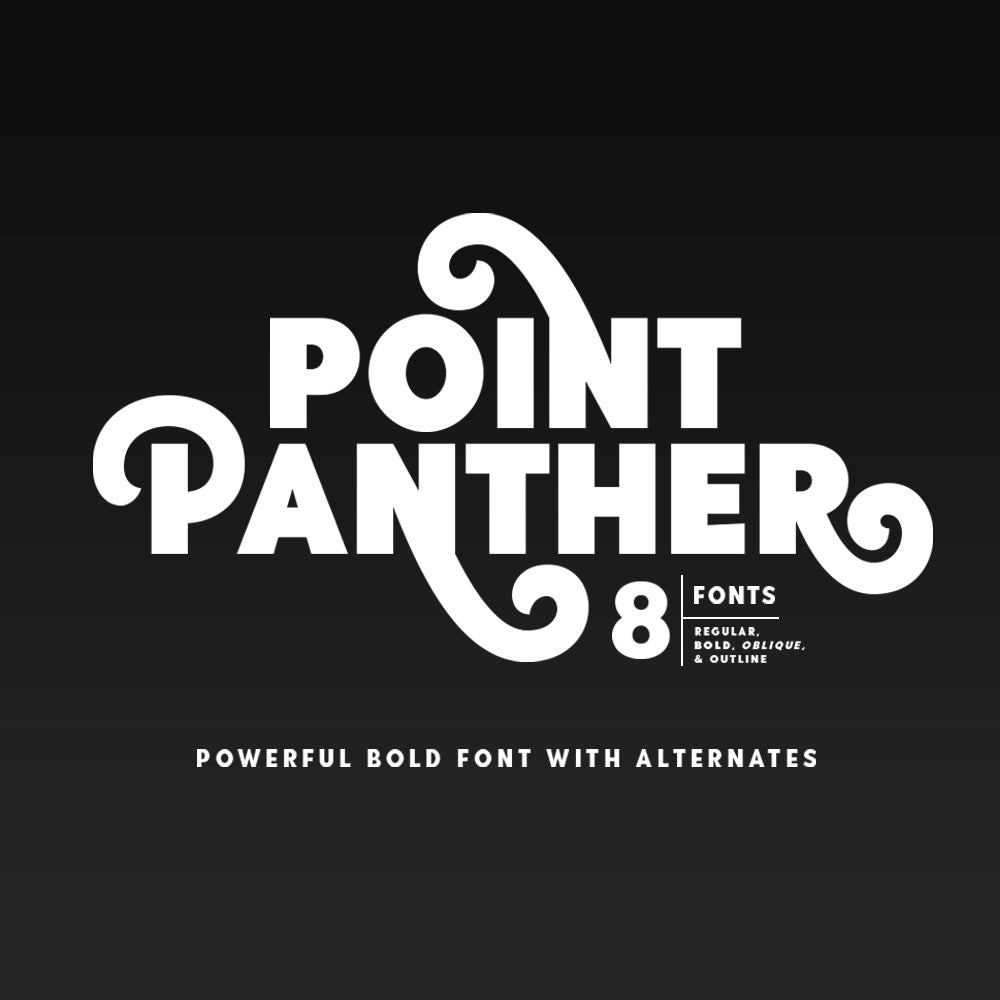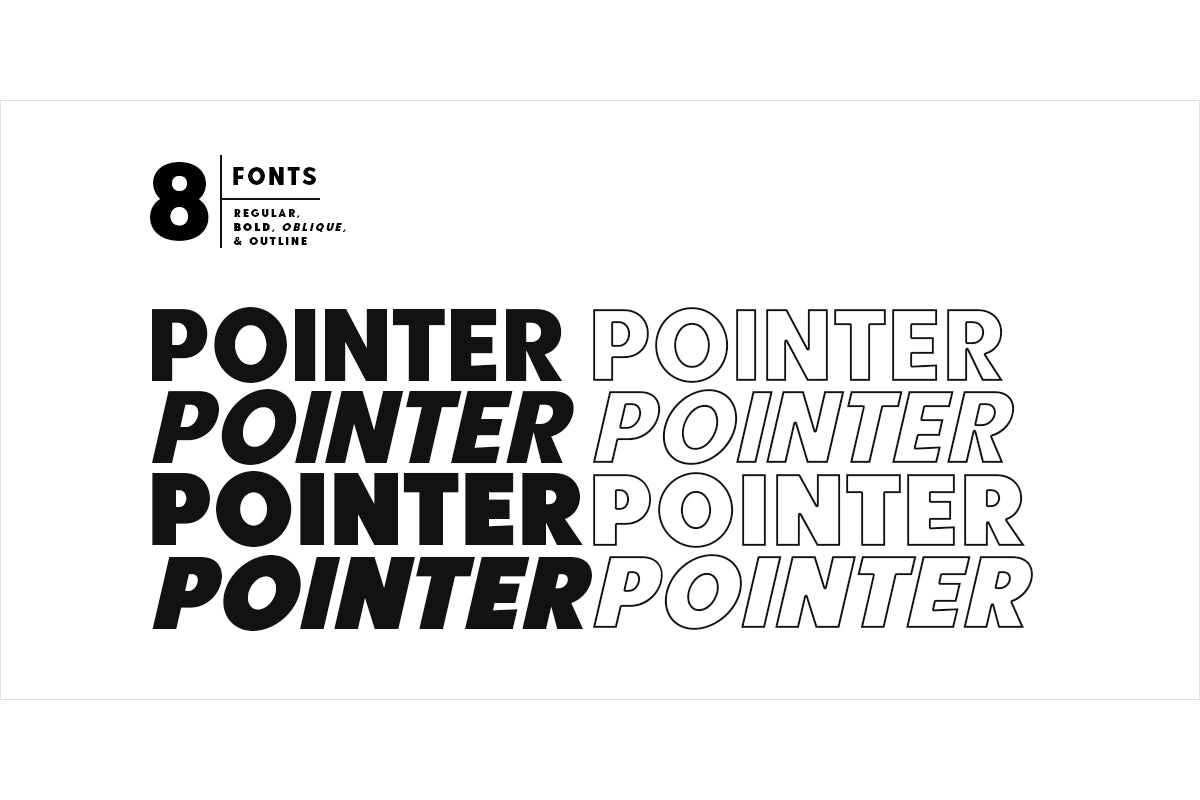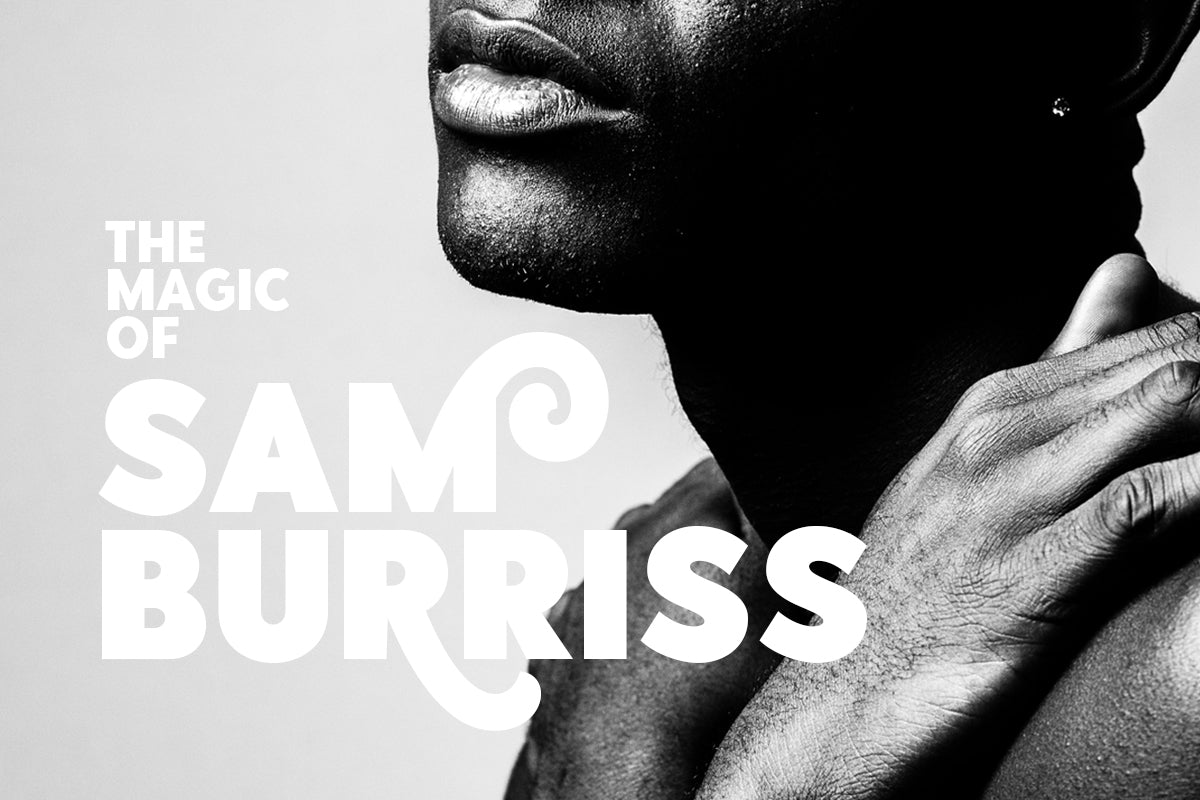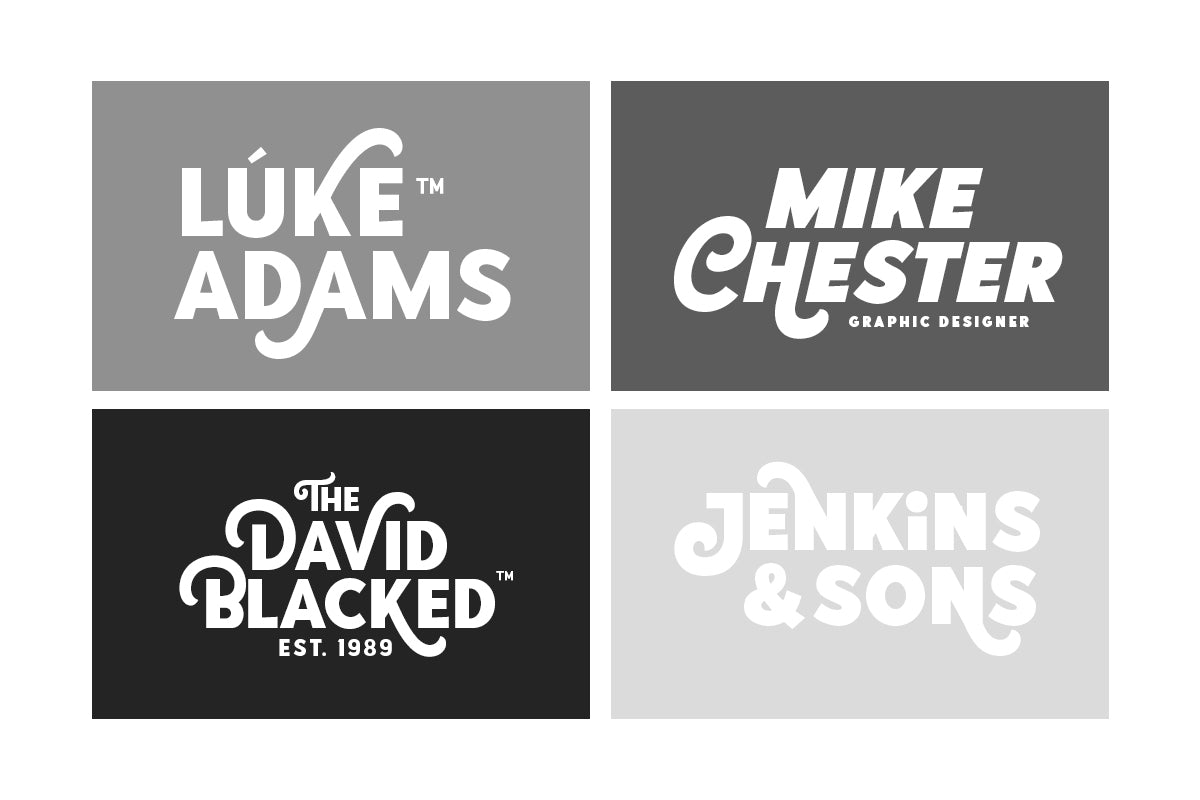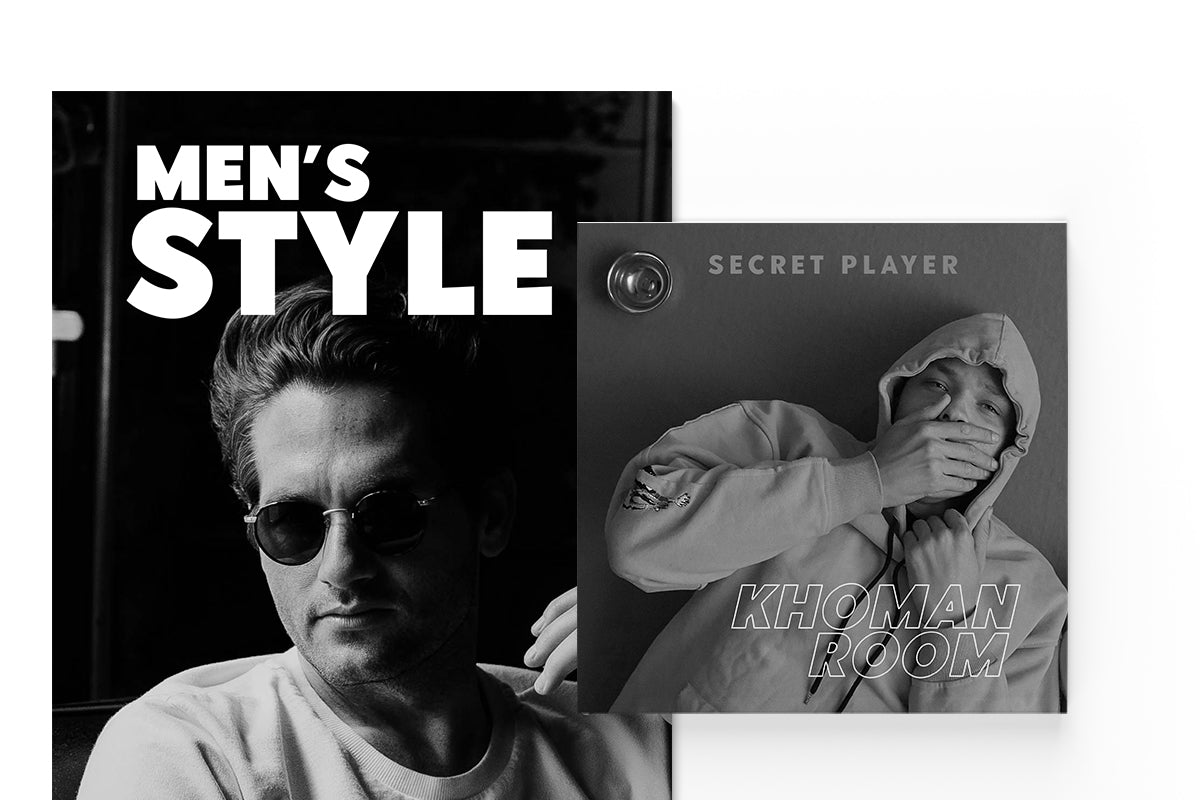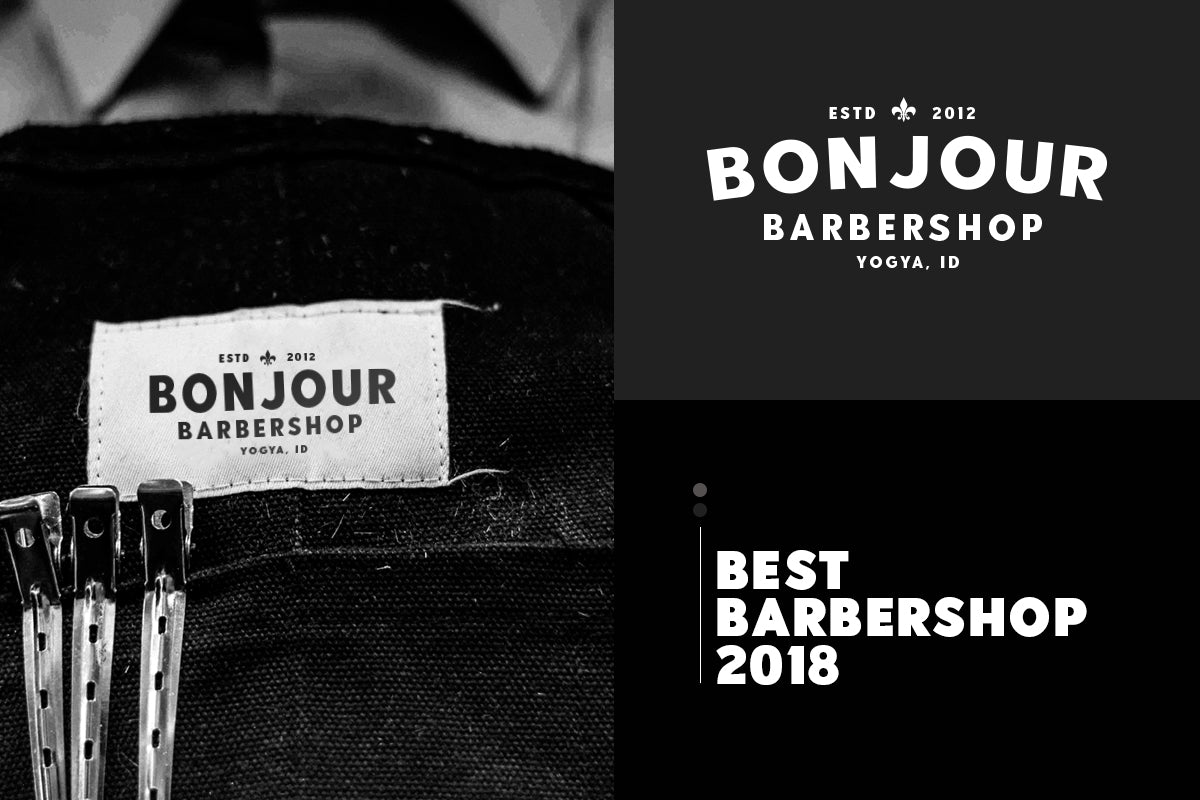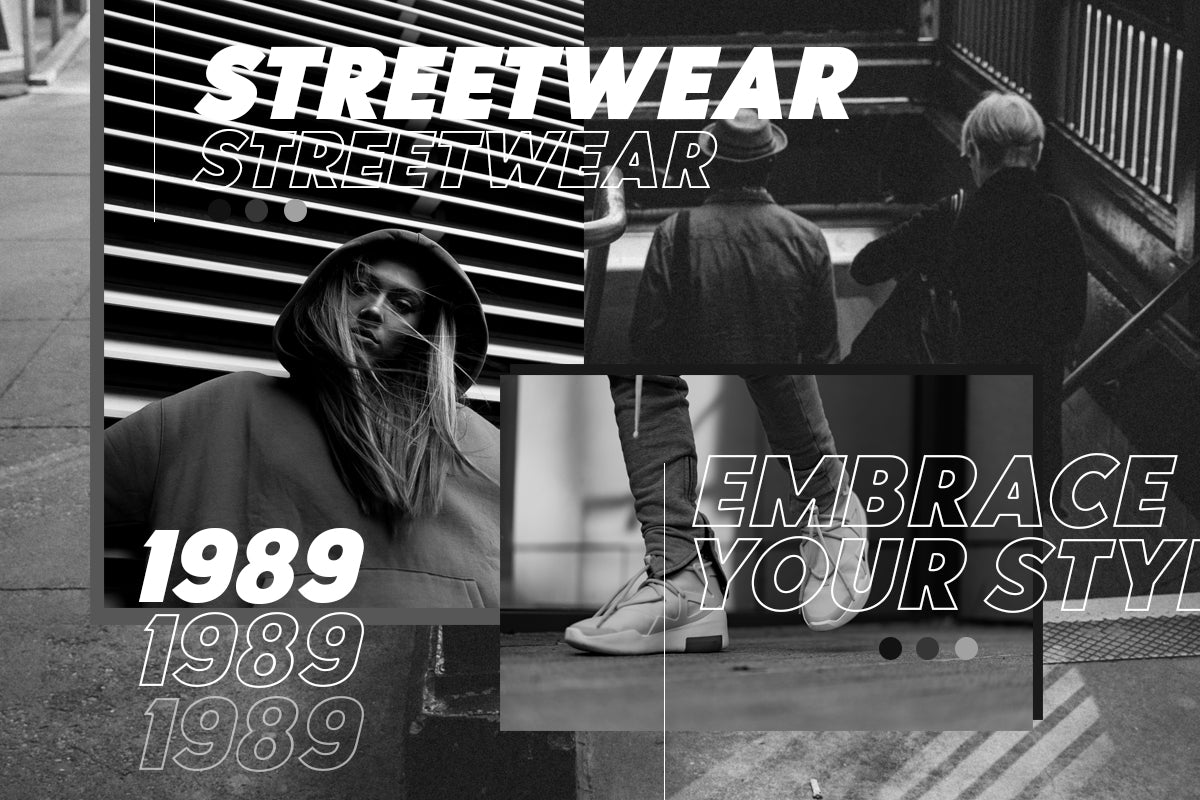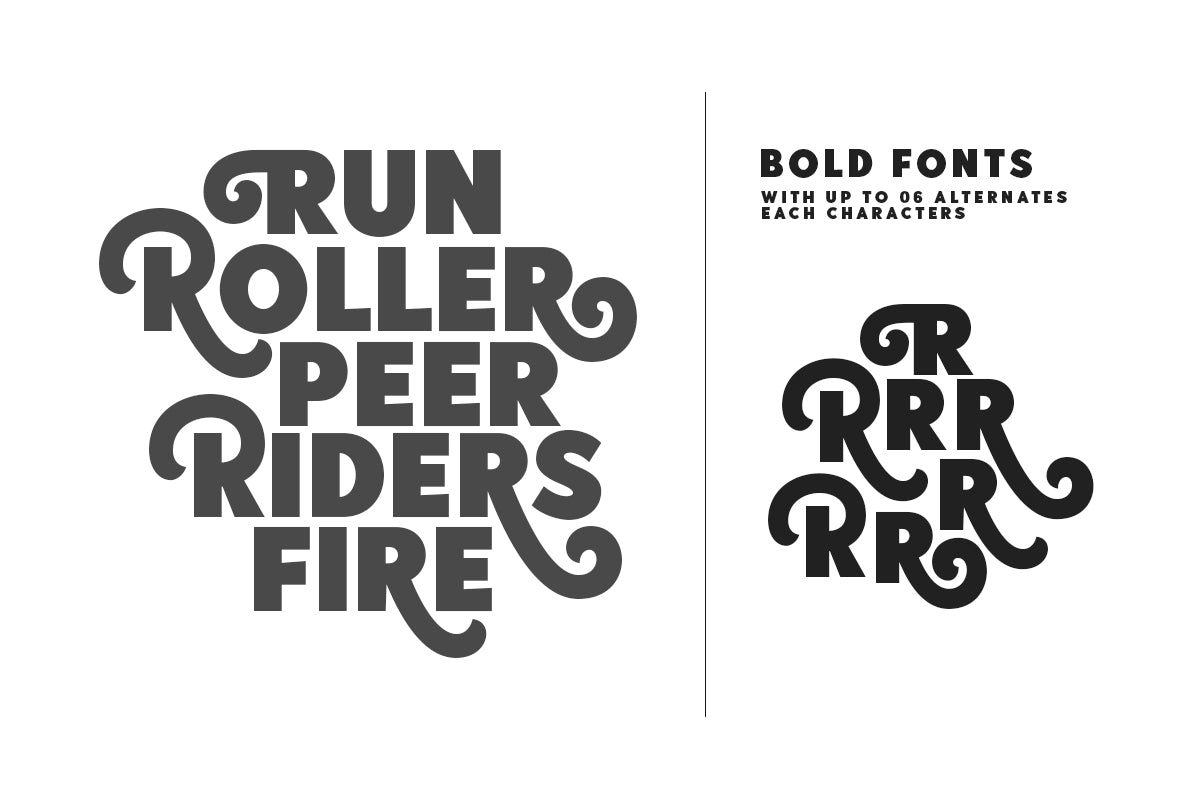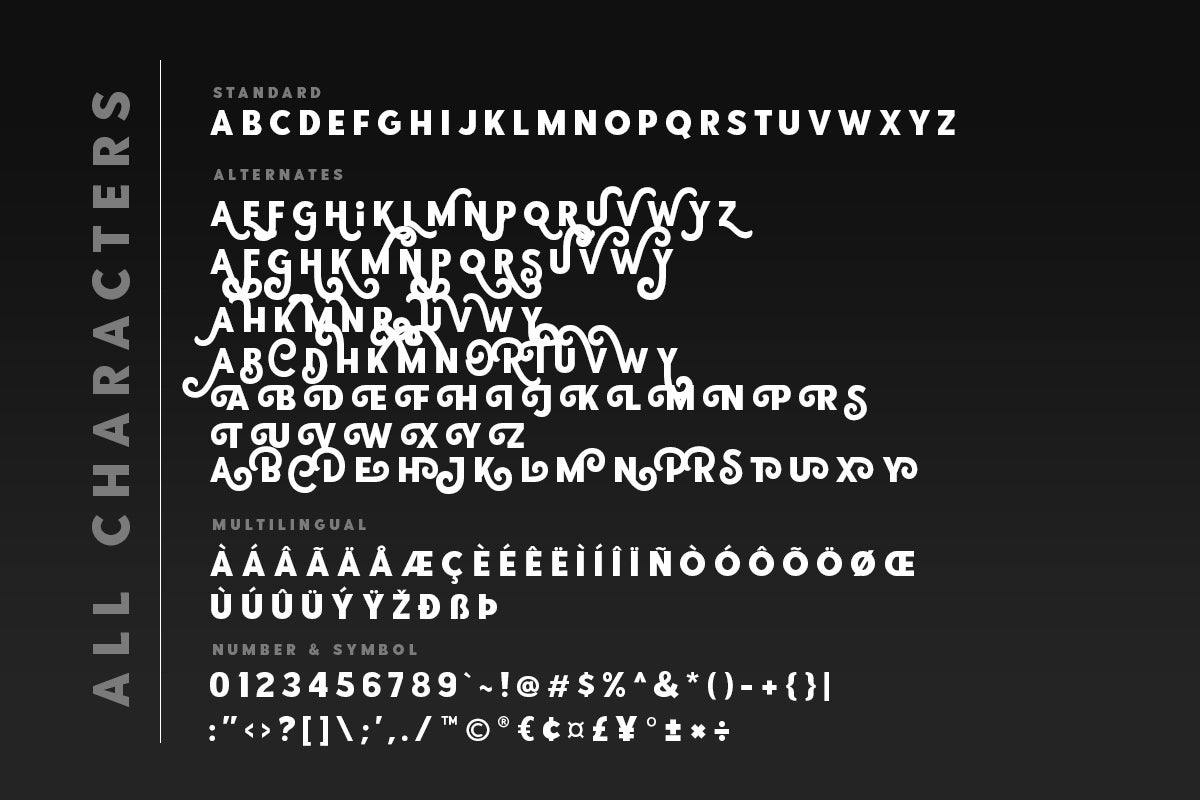
Point Panther (8 BOLD FONTS)
Point Panther is a super bold headline font featuring up to 6 alternates for each character, along with italic and outline styles. This font supports multilingual characters and is designed for versatility in bold typography.